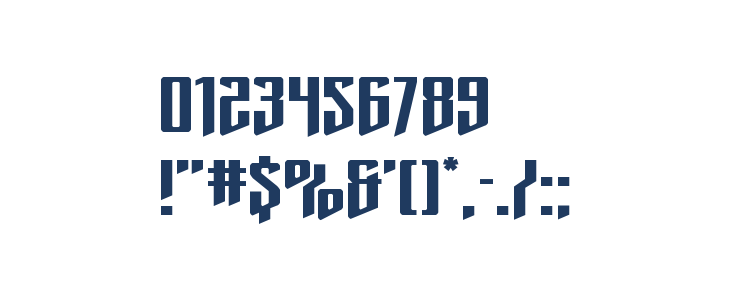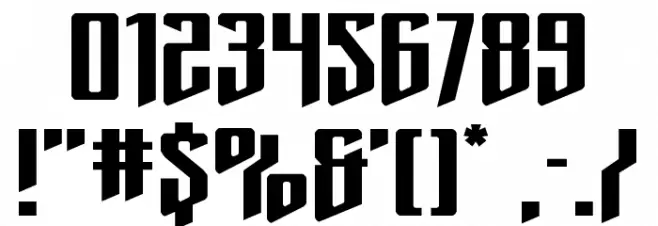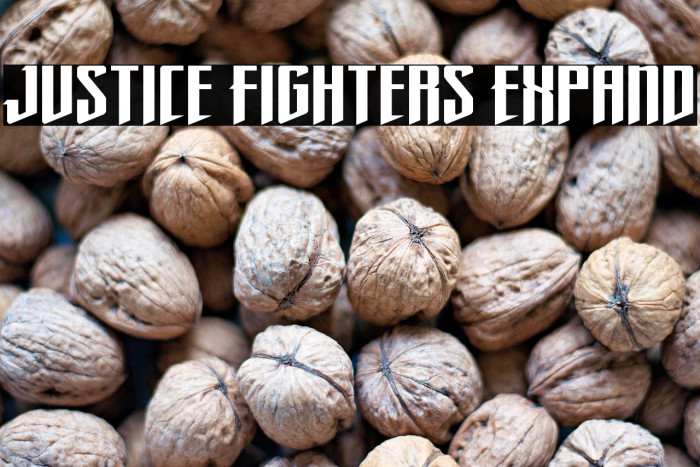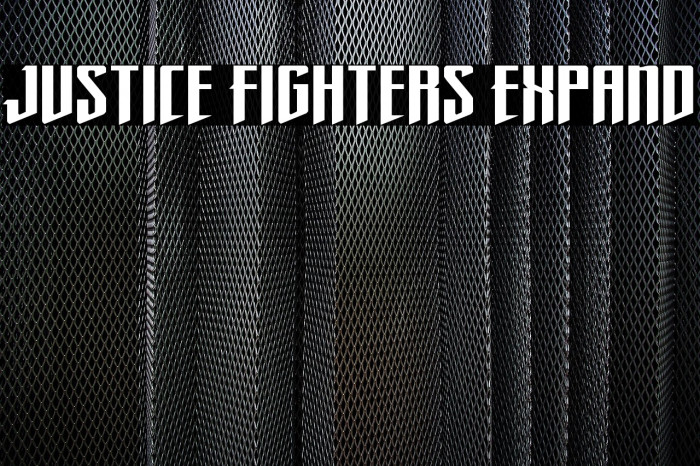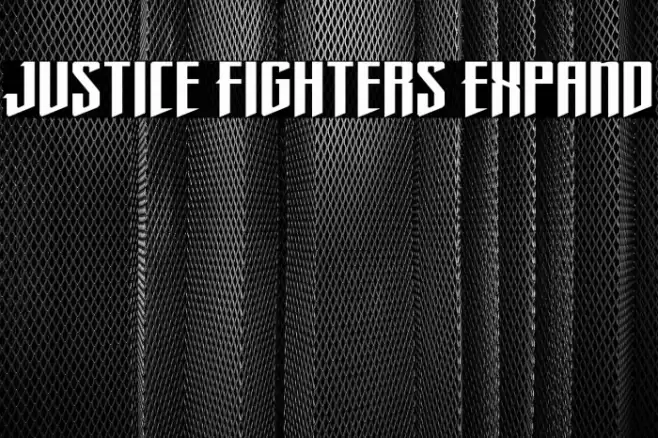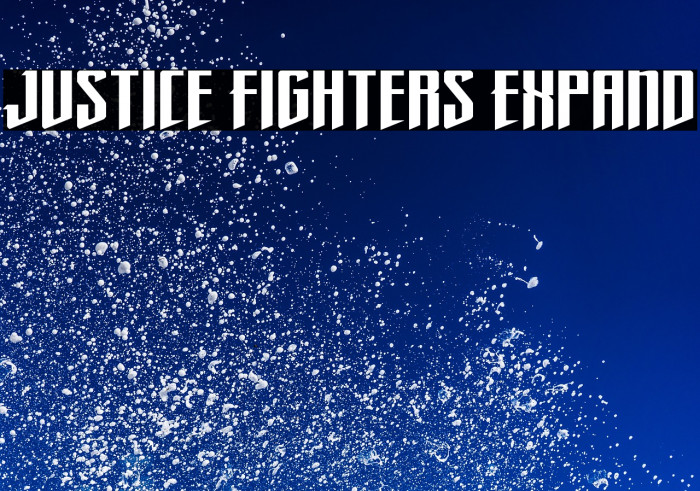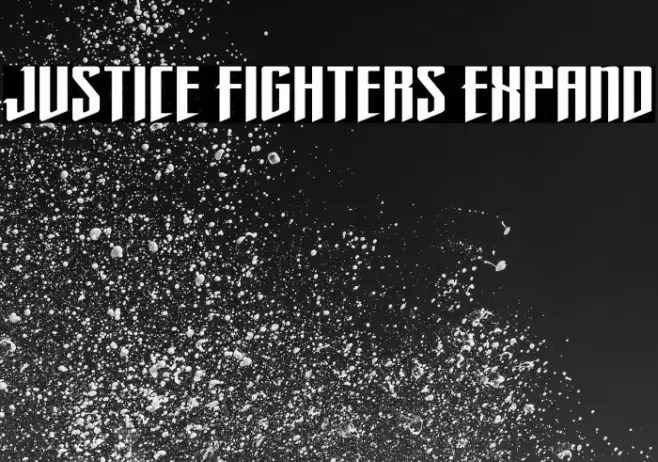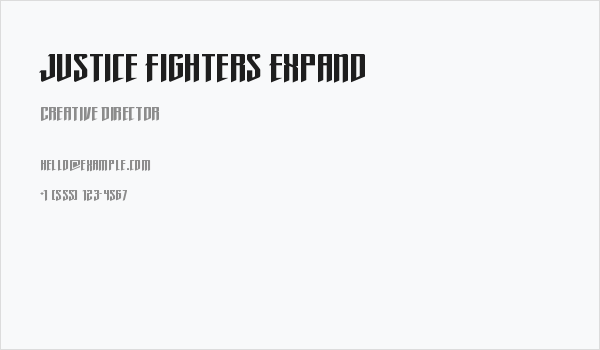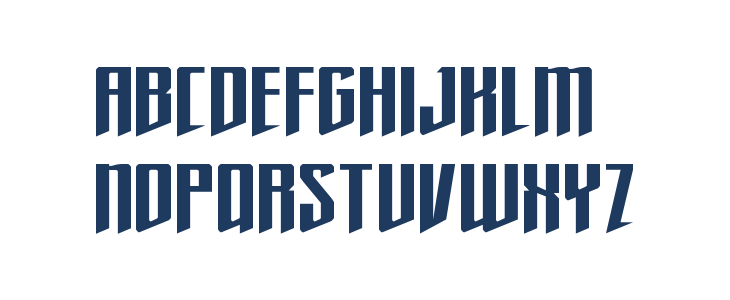
Justice Fighters Expand Font
Justice Fighters Expand Description
This font features a bold and dynamic design with sharp, angular edges and a strong presence. The uppercase letters are tall and commanding, with a slight slant that adds a sense of motion and energy. The numbers and special characters maintain this bold style, ensuring consistency across all characters. The font's geometric structure and thick strokes make it highly legible and impactful, suitable for attention-grabbing designs. Its unique style is reminiscent of action and adventure themes, making it ideal for projects that require a powerful and assertive typeface.
| Proposed Projects | Ideal for use in action movie posters, video game titles, sports branding, and any project that requires a strong, impactful typeface. |